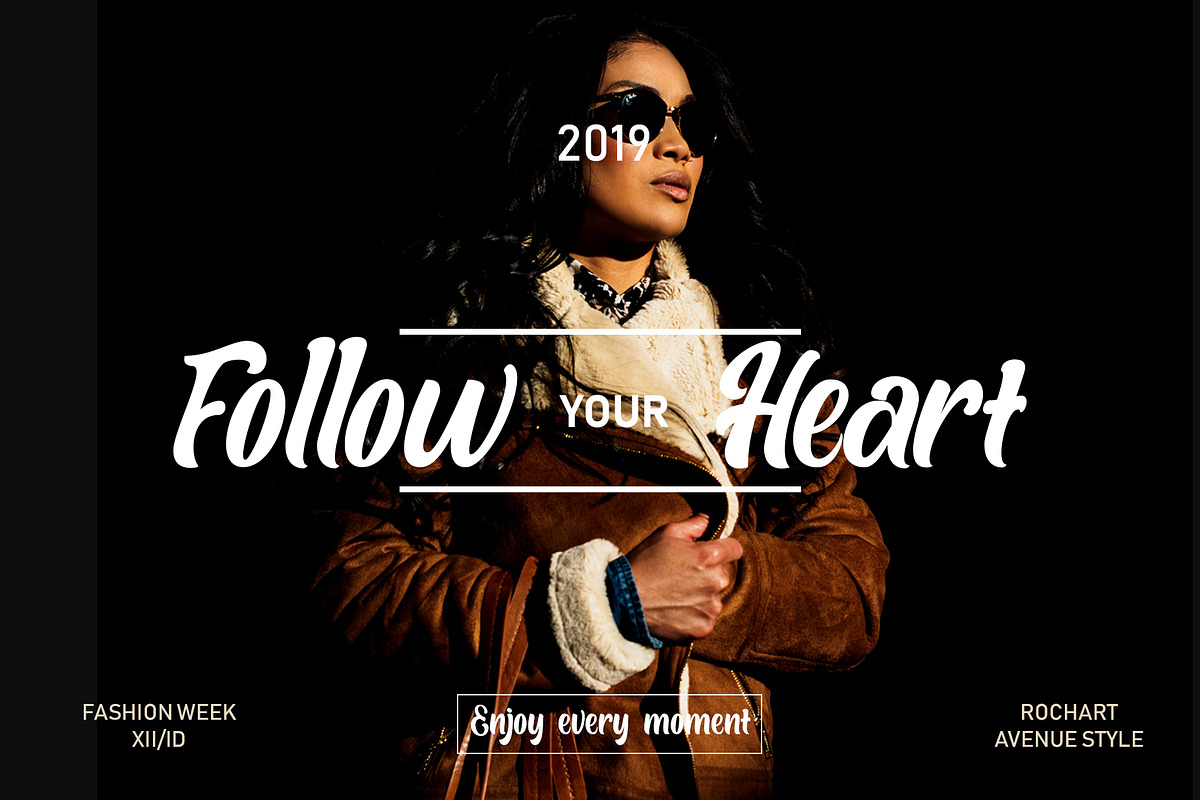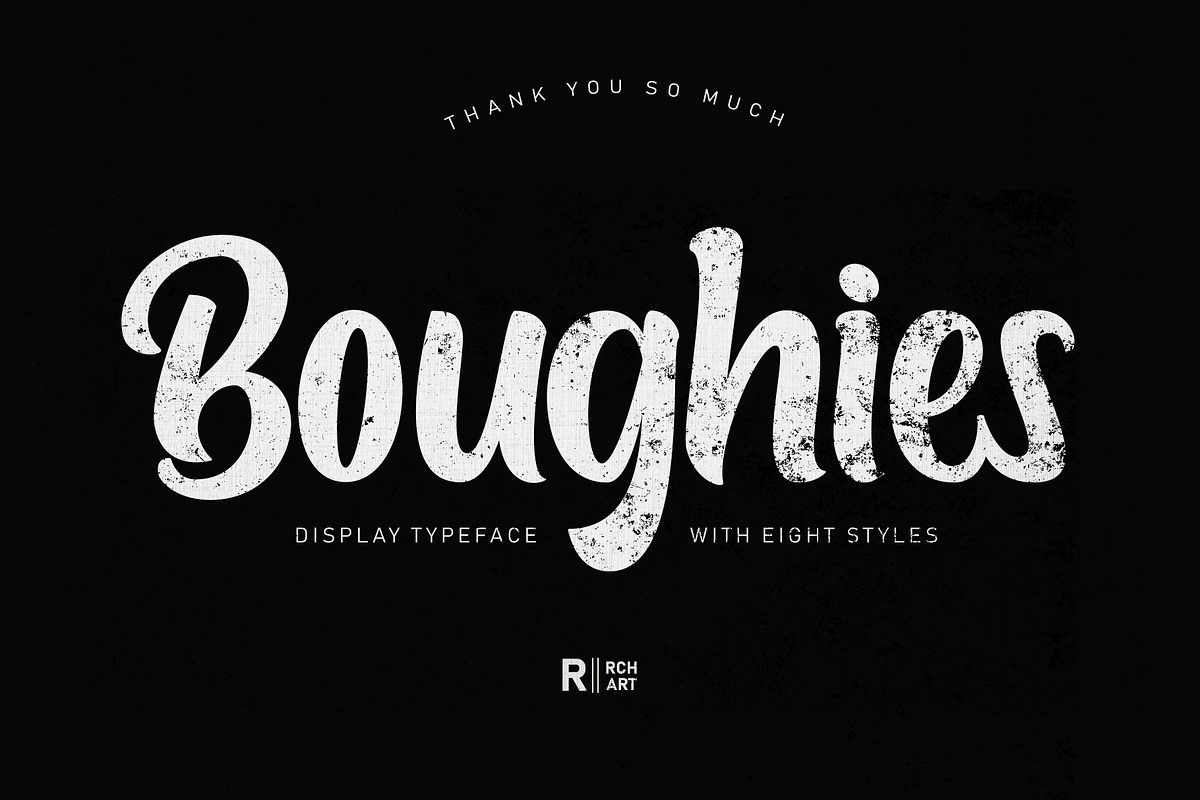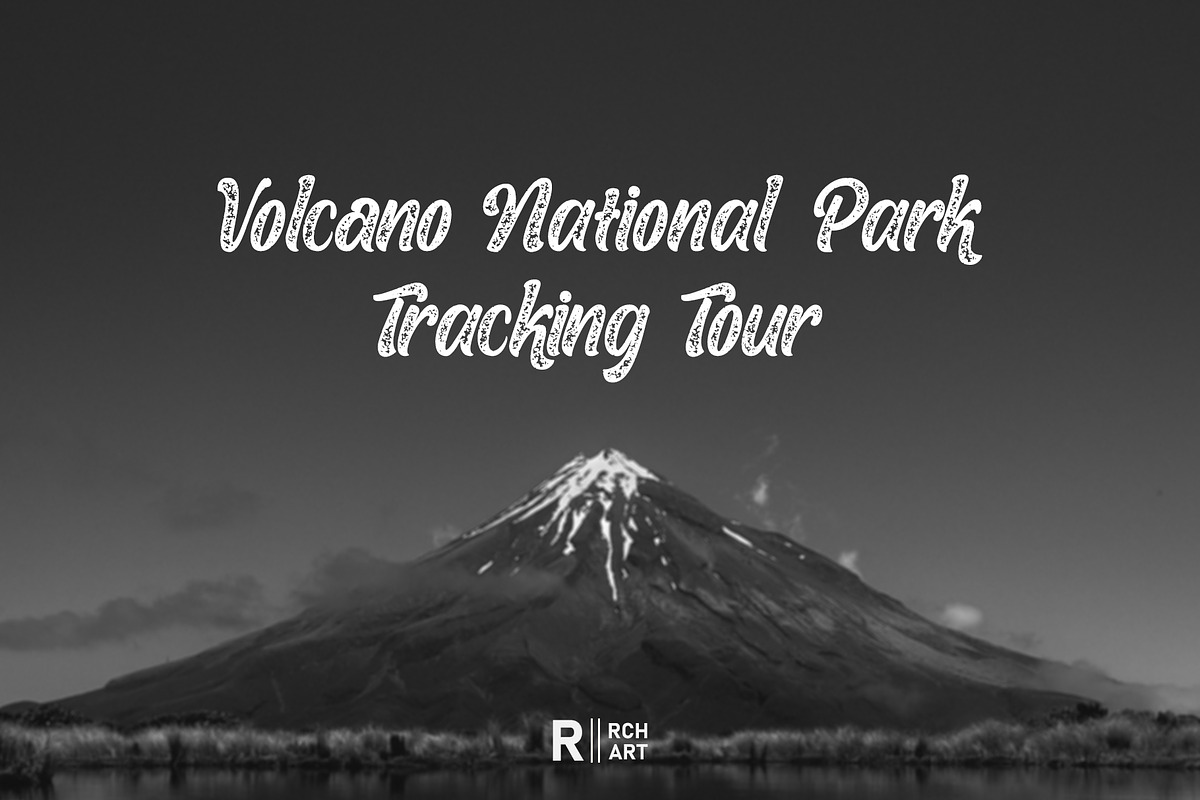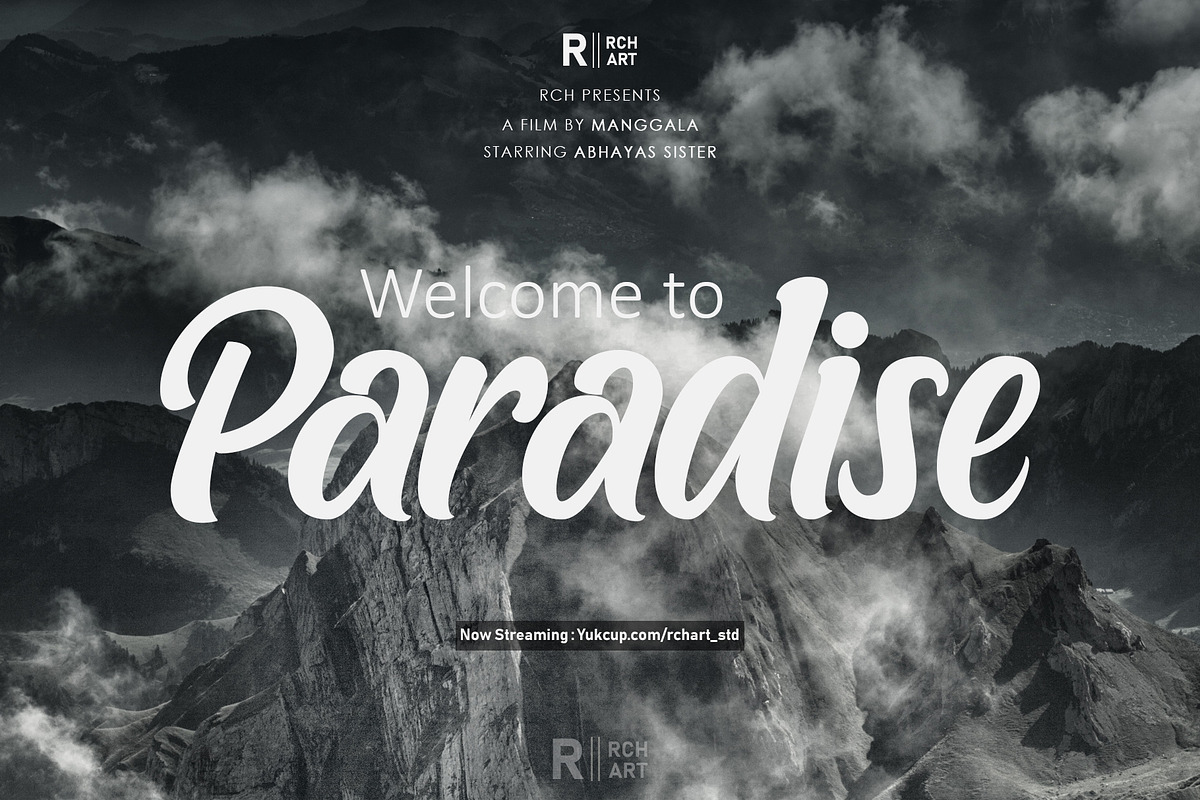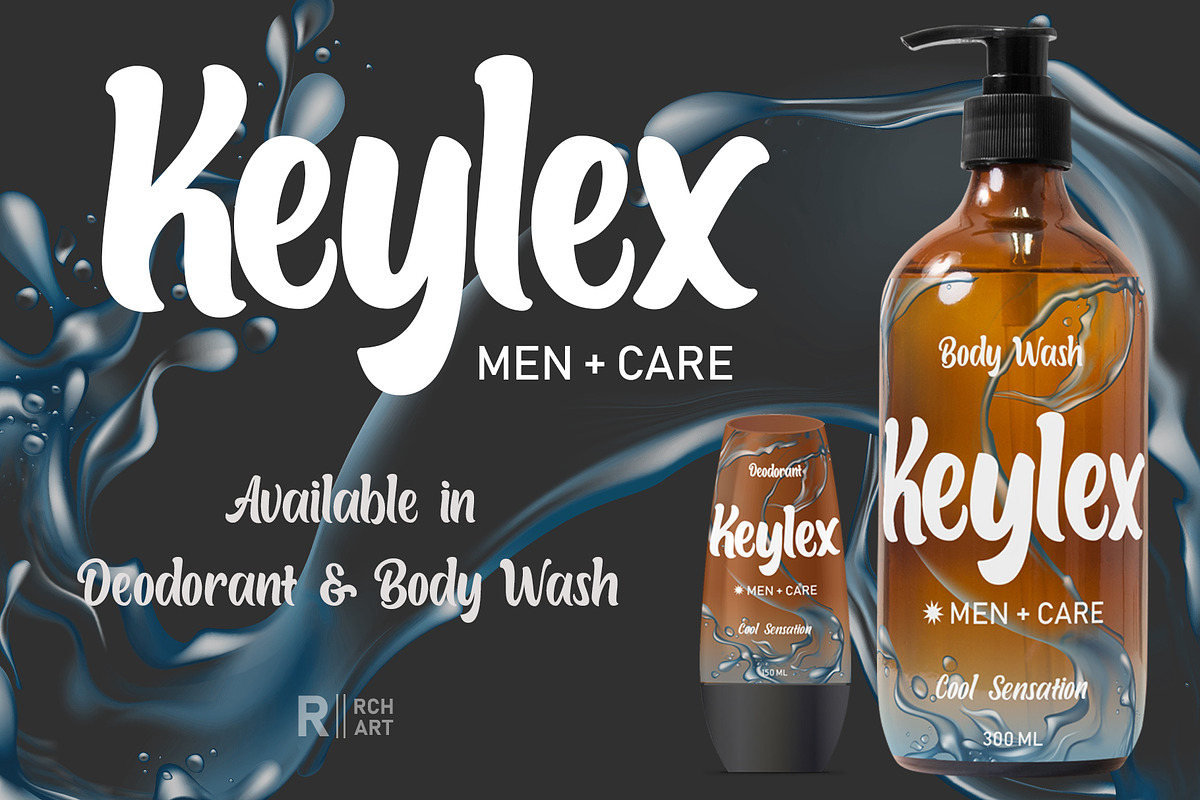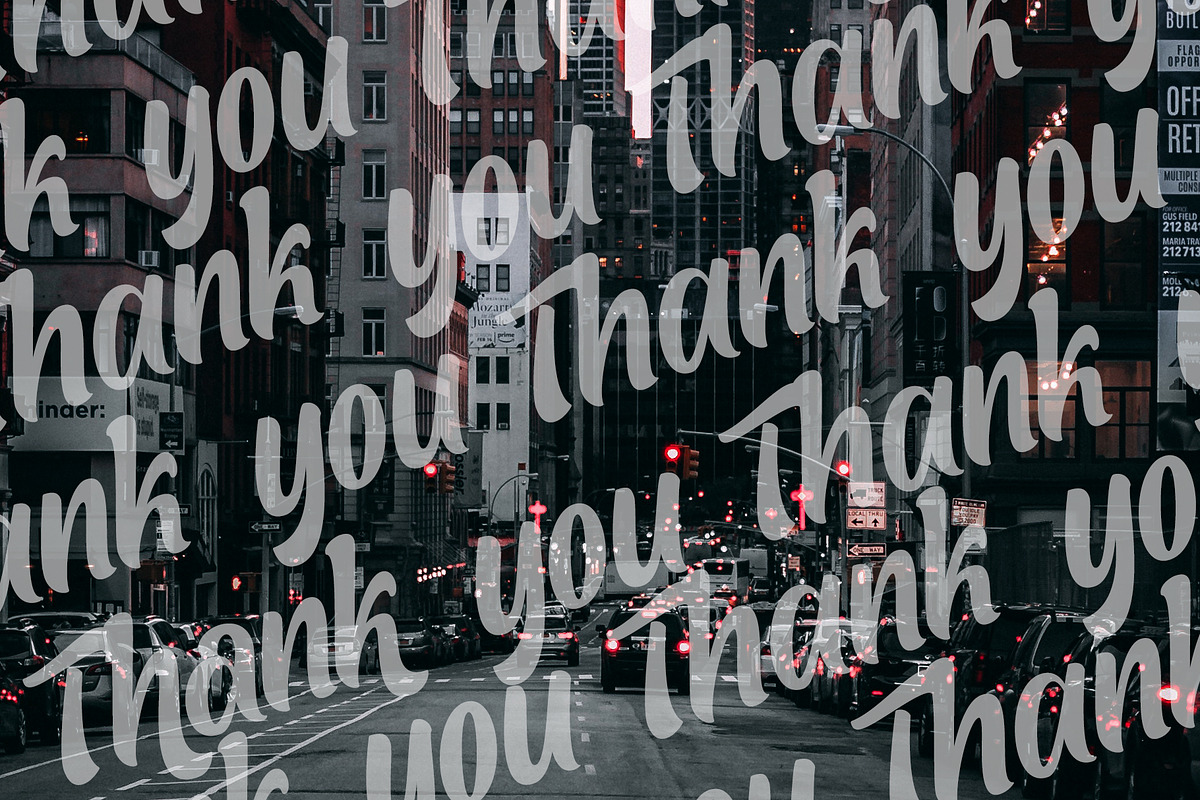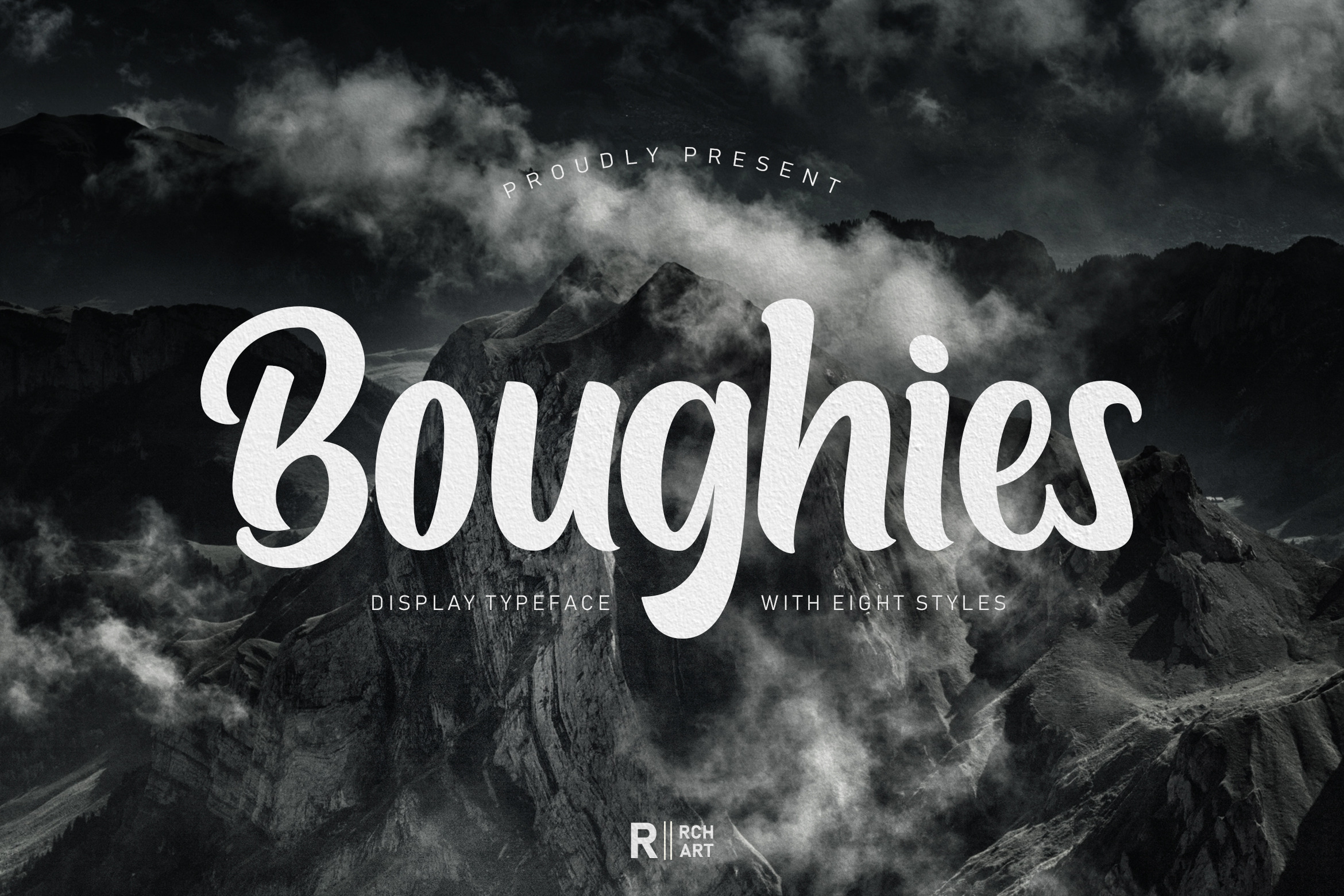
Boughies Typeface
Boughies typeface is Modern bold font. Boughies typeface is great for Branding, Logo Design, Lettering,Logotype, Clothing, Poster, magazine and other design project.
PUA Encoded Characters – Opentype feature, with Stylistic Alternate and ligature.